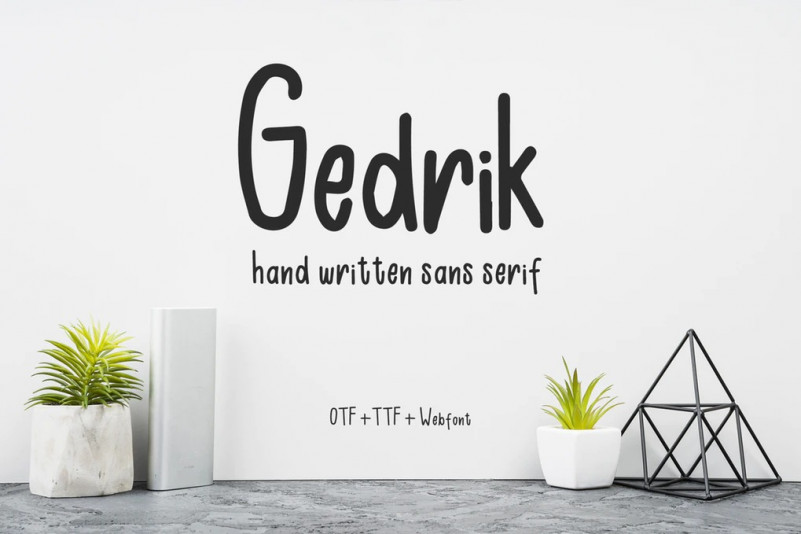
Gedrik Font
Gedrik is a handwritten Sans Serif font. Work great for any design needs: logo, branding, modern advertising design, logos, poster quote, book/cover Title, editorial design, website/blog, card, custom mug, pillow, t-shirts, and any hand-lettered needs.